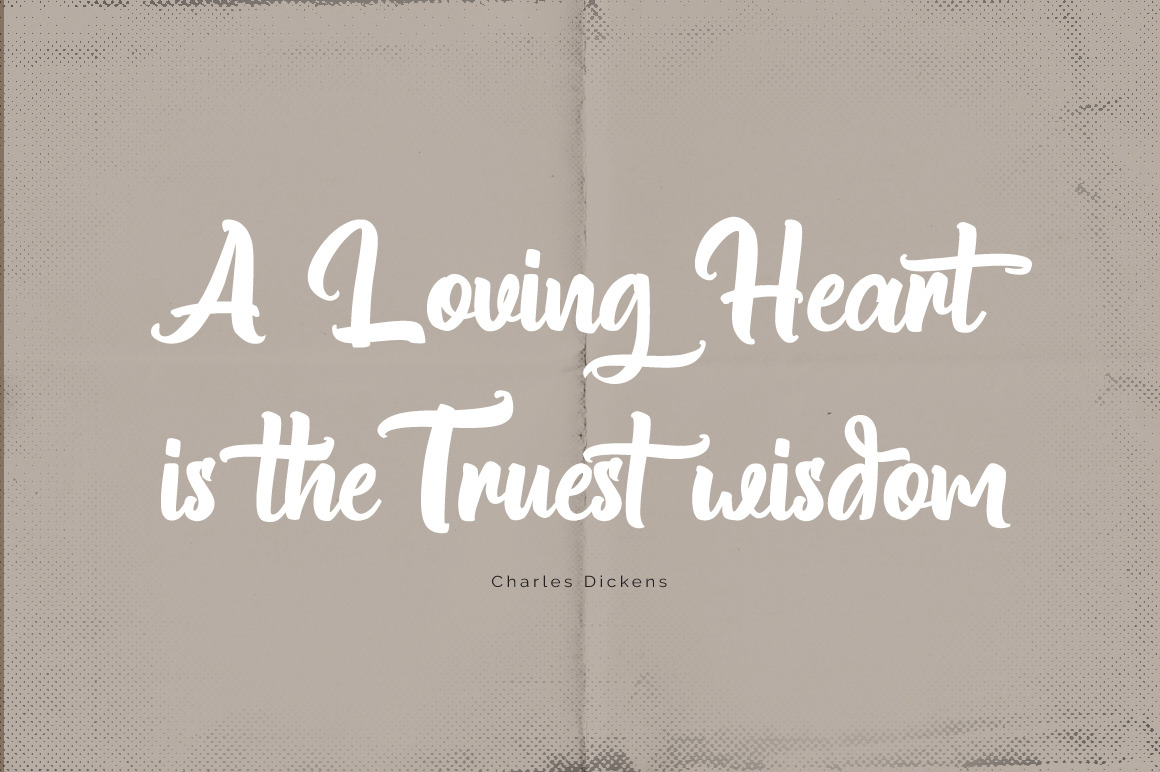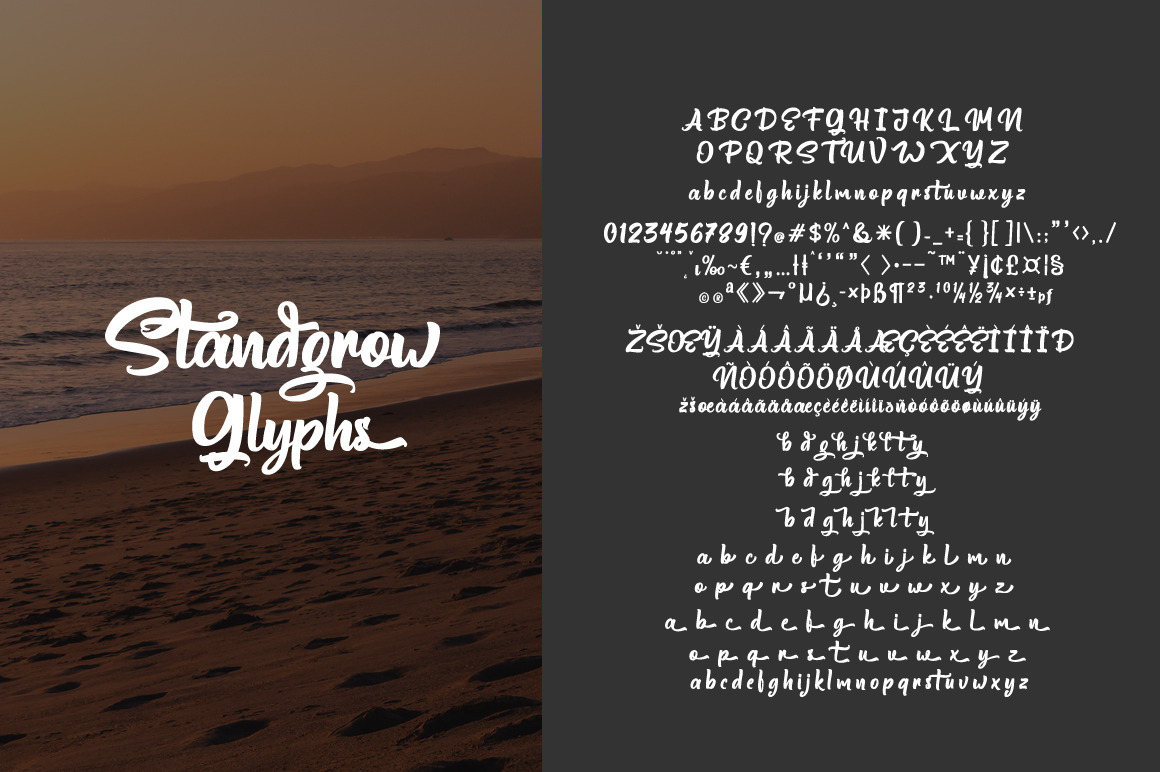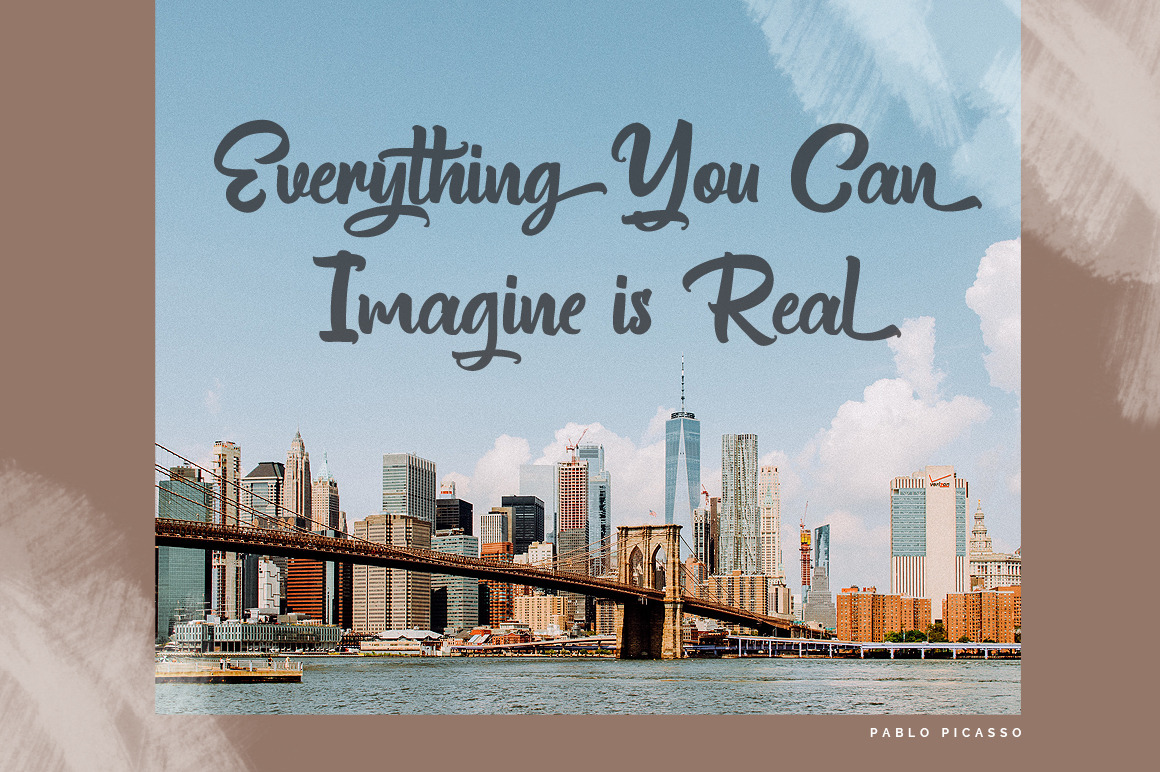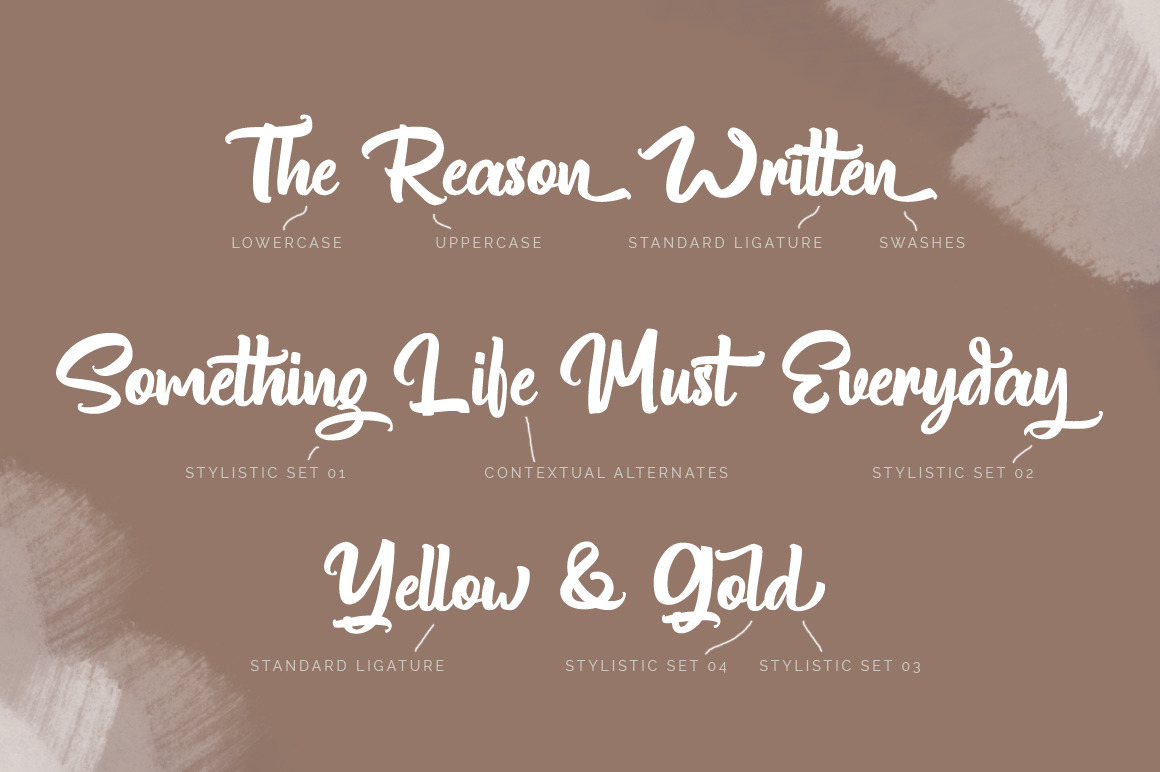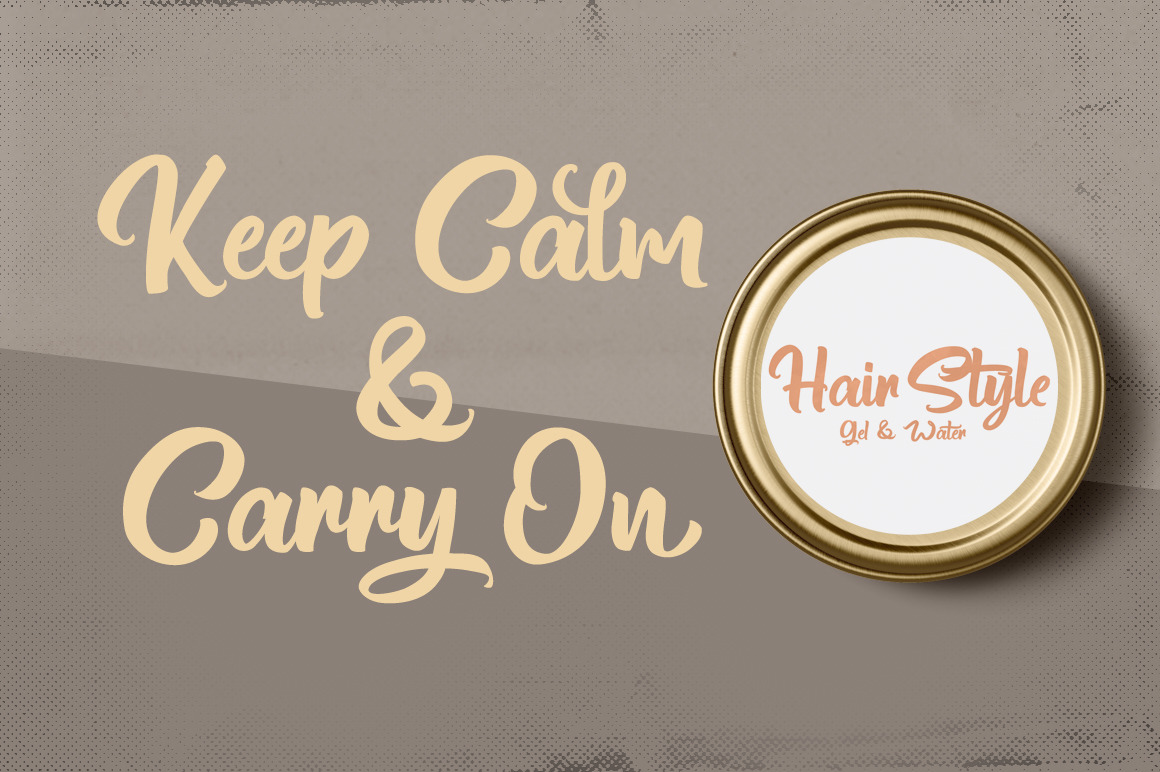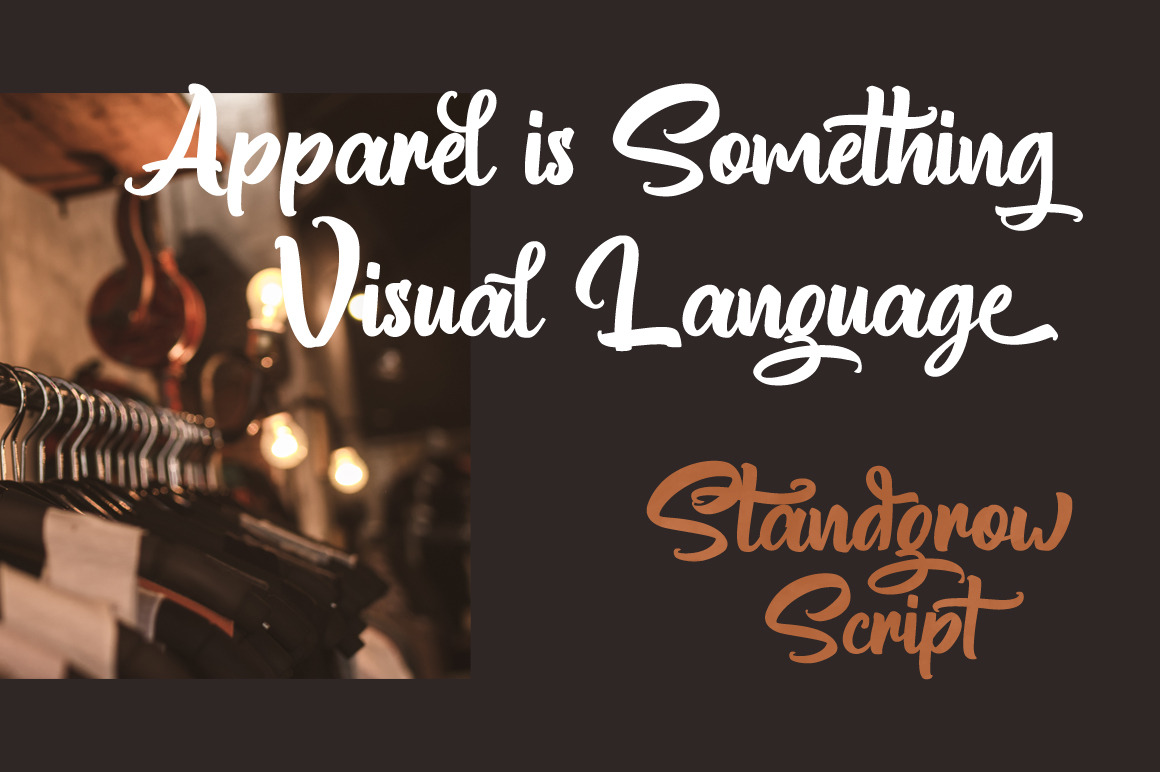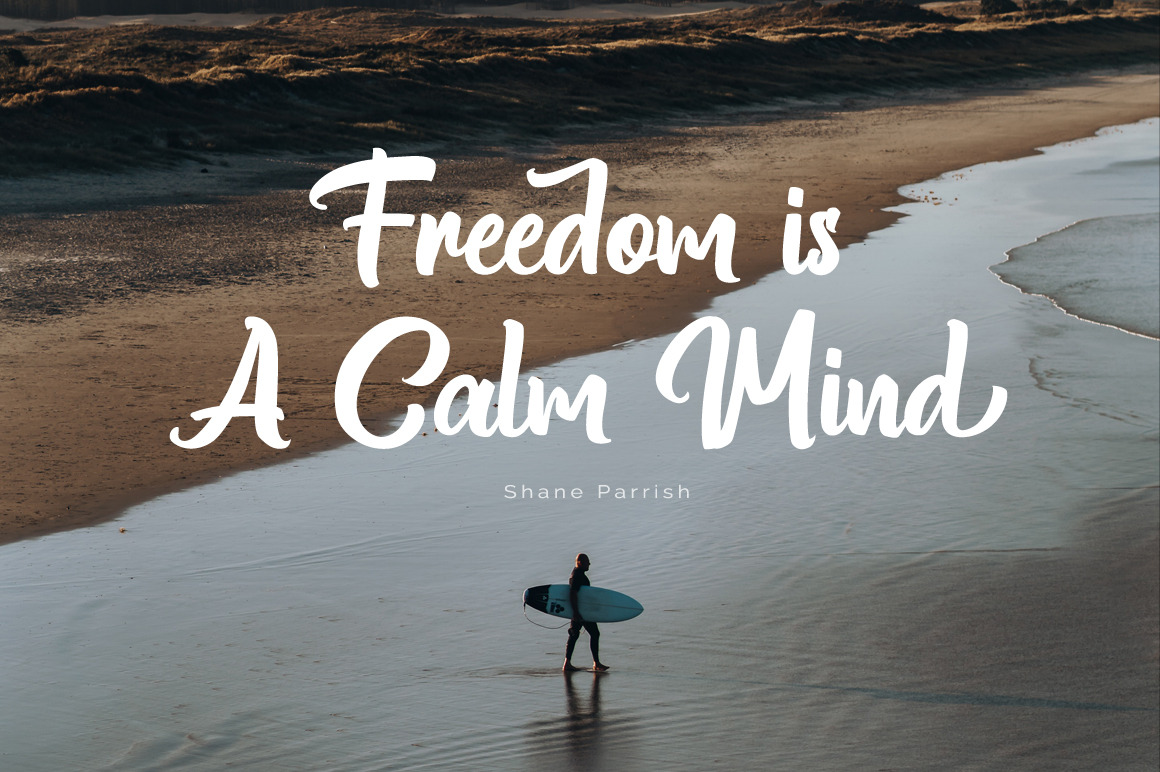
Standgrow - Script Font Tutorial Font: Tutorial Open Type In Word: https://www.youtube.com/channel/UCPcAHwTKrUZP1YQ3T1AgbLQ https://www.youtube.com/watchv=wnZViHZzOIE Tutorial Open Type In Adobe Illustrator: https://www.youtube.com/watchv=pfDzGpv50dQ https://www.youtube.com/watchv=-ZM-1-_L73w Standgrow is script font with authentic clean brush style, with opentype feature include of the font. Suitable for design, element design, wedding, event, t-shirt, logo, badges, sticker, and awesome work, etc... Feature Of The Font: - Standgrow OTF And TTF - Standgrow Web Font - All Standard Character, Symbol, Multilanguage, Ligature, Stylistic Set, and Swashes. - PUA Encode - Unique style fonts - Easy customize How to install fonts: - Double click at the font files or Click Install fonts - Adobe Illustrator CC or CS, Adobe Indesign, word, inkscape and Coreldraw etc, for edit the font - Ready to use "Standgrow" for Awesome Work Follow Me: - https://www.instagram.com/FHFont - https://twitter.com/FH_Font - https://www.facebook.com/FHFont/ - https://id.pinterest.com/feydesign/ be Pleasure recommended my item Thank you, Regard Ferry Hadriyan | Standgrow - Script Font | FHFont